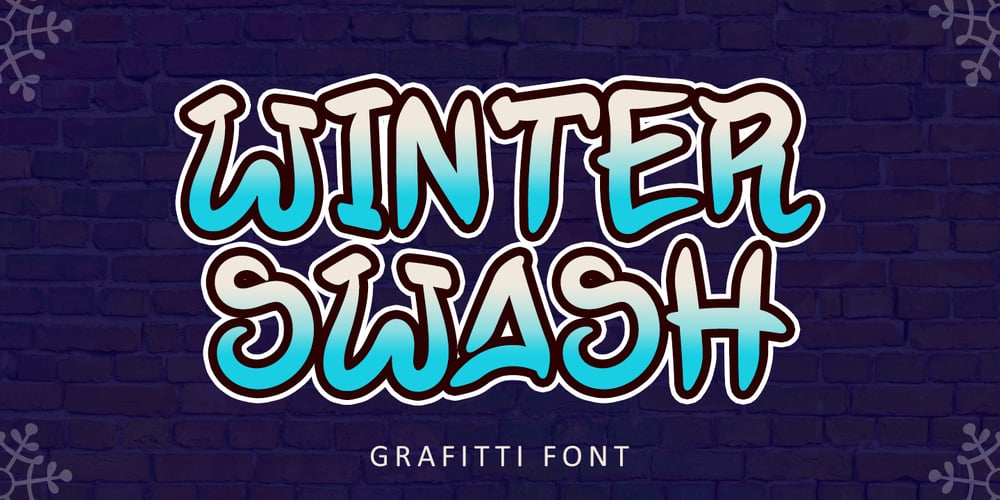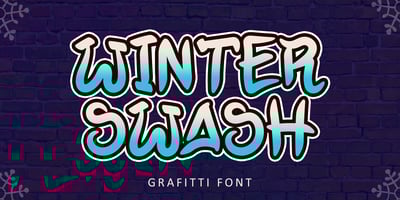
Winter Swash
Winter Swash font
Winter Swash Font Family was designed by Bayu Suwirya and published by Illushvara. Winter Swash contains 1 styles and family package options. Hello,Introducing a new font Winter Swash inspired by graffiti style. It’s bold, dramatic, urban styled display font.Add this font to your favorite creative ideas and notice how it makes them come alive like a poster, kids flyer, merchandise, quotes, branding, cartoon, comic and more.If you have any question, don’t hesitate to contact me. Happy Designing !!!Thank You,Bayu Suwirya